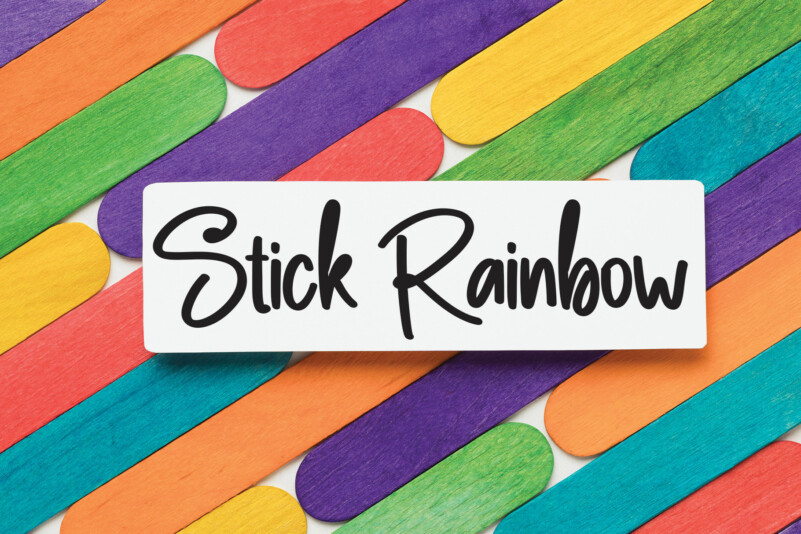
Fingerprint Script Font
Fingerprint Script Font is a quirky handwritten font. Made by handwriting instantly brings out the natural characteristics of your project. This font is perfect for websites, svg designs, home decor, branding, blogs, logos, invitations, and more.